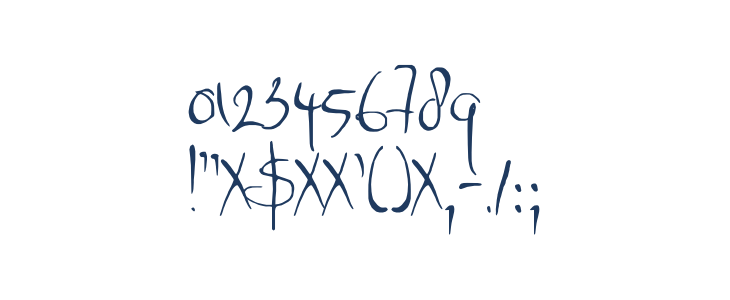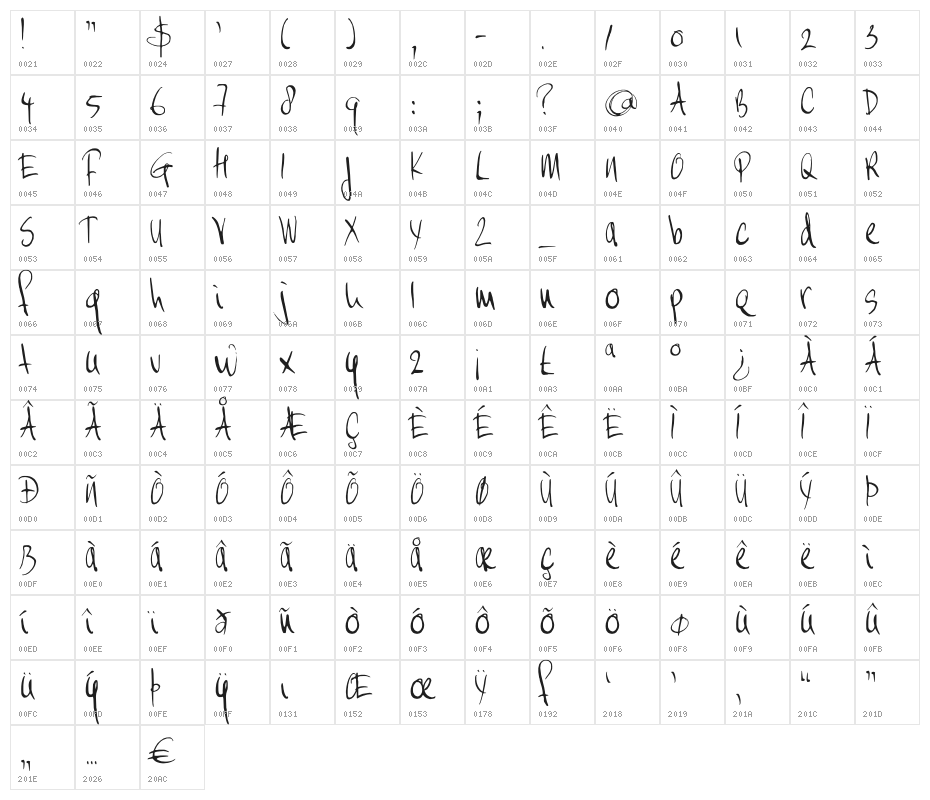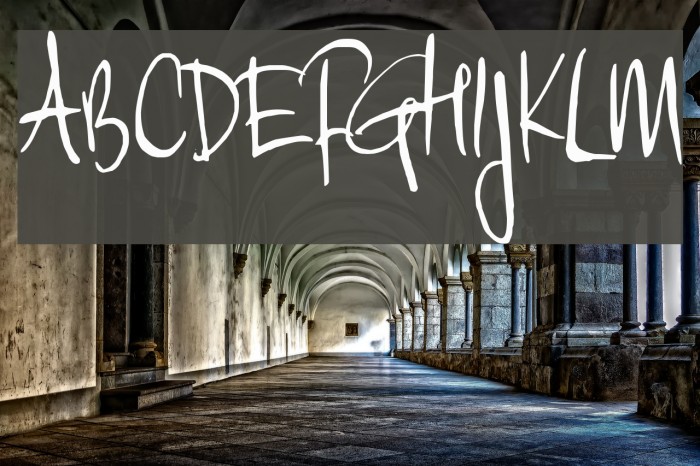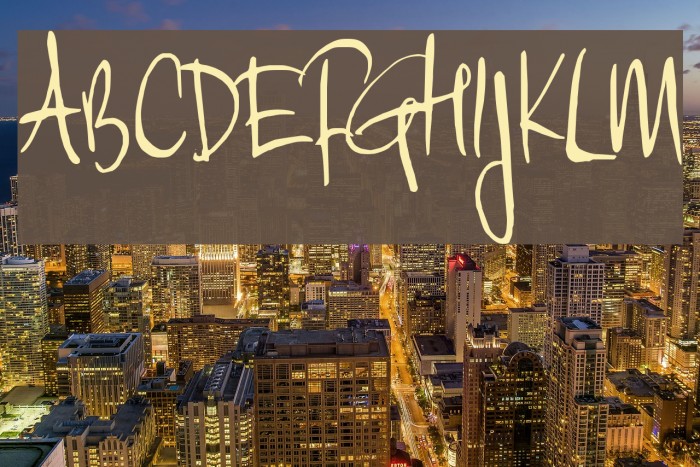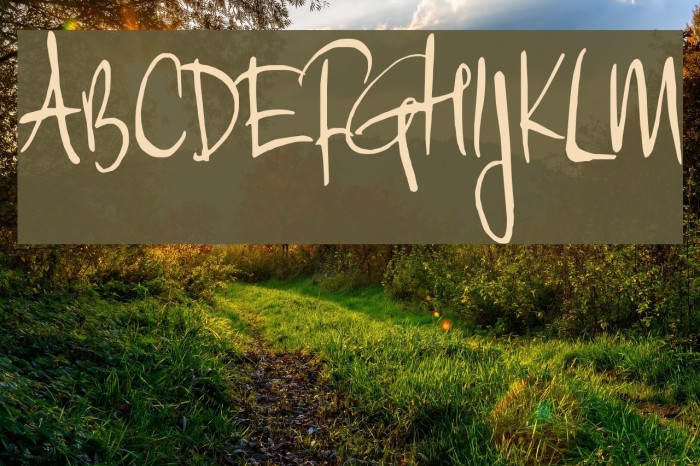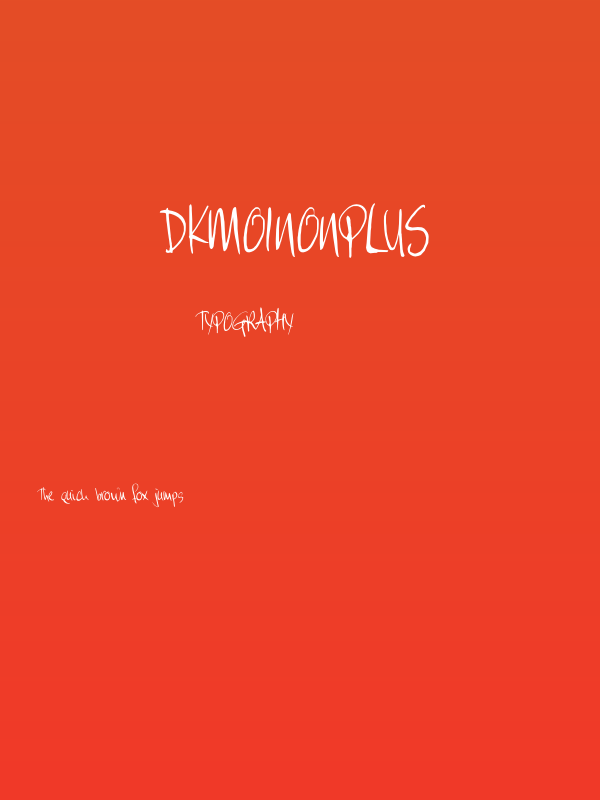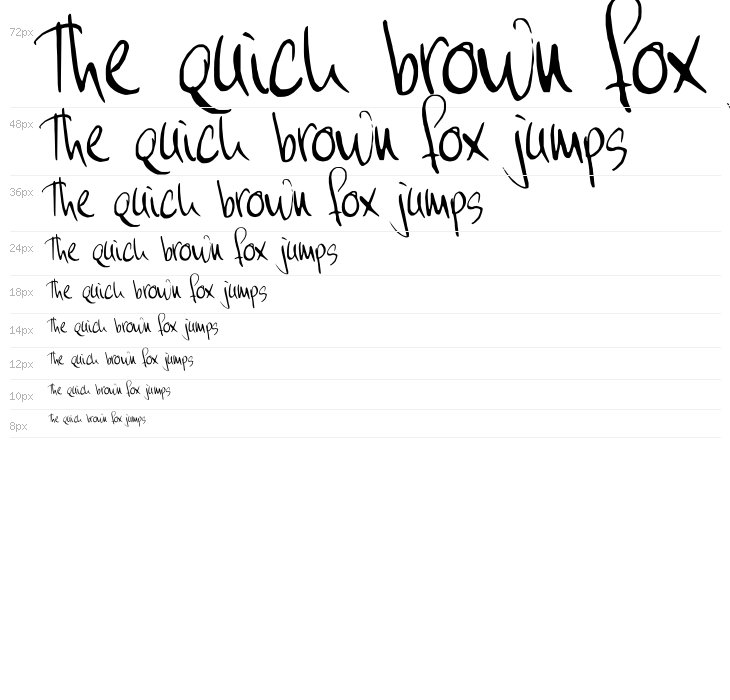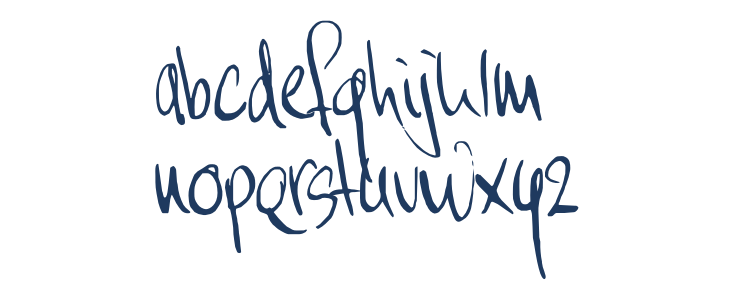
DKMoiNonPlus Font
DKMoiNonPlus Description
This font exudes a dynamic and expressive handwritten style, characterized by its fluid and spontaneous strokes. The letters are crafted with a natural, free-flowing motion, giving it an artistic and personal touch. Each character varies in width and height, adding to its organic feel. The uppercase and lowercase letters maintain a consistent style, while numbers and special characters blend seamlessly into the overall design. The font's playful and informal nature makes it ideal for creative projects that require a personal and artistic flair.
| Overall Style | Artistic |
| Use Case | Logos, Posters, Invitations |
| Proposed Projects | Ideal for greeting cards, artistic posters, personal branding, and creative invitations. |